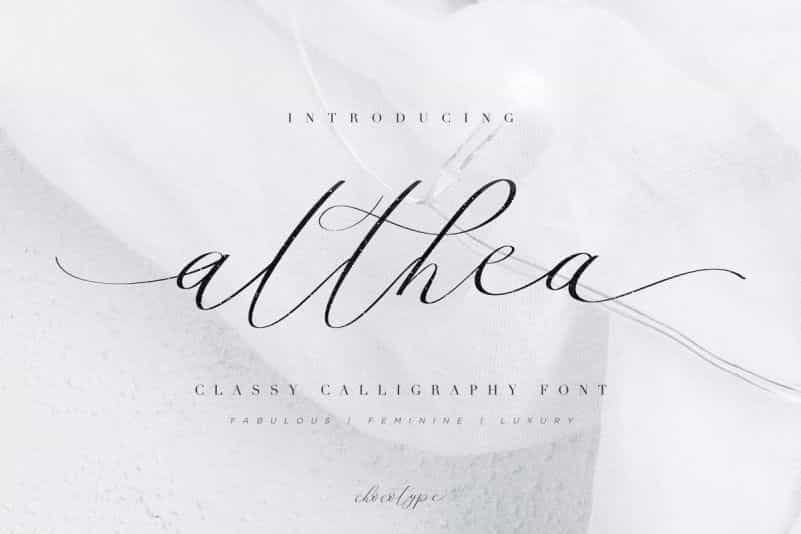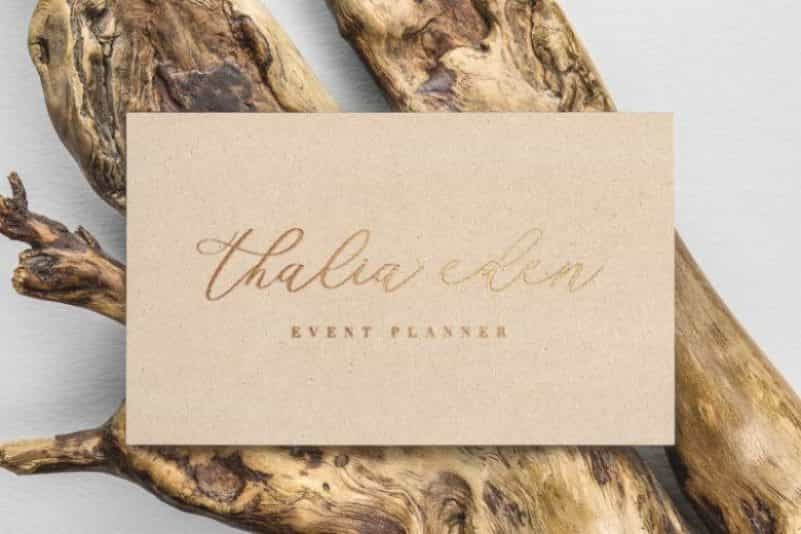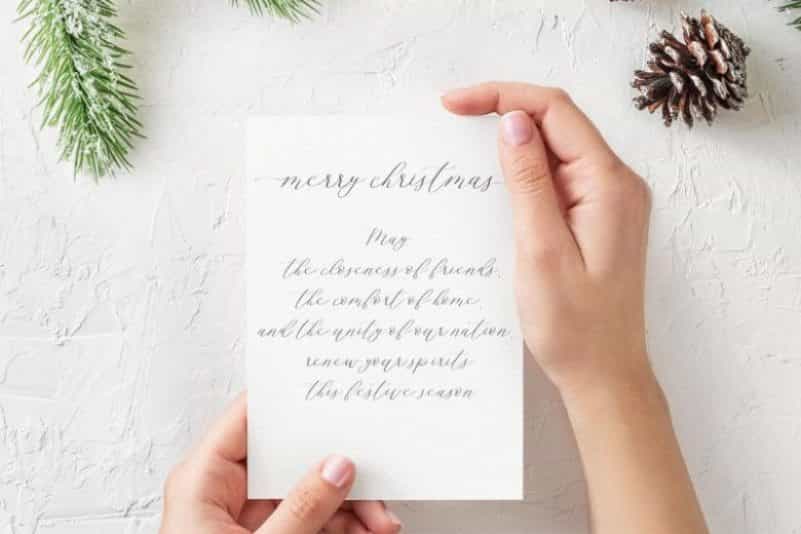
The Althea is a beautiful font that is used for calligraphy. It has a classy style and will give a luxurious look to any design that you are going to make.